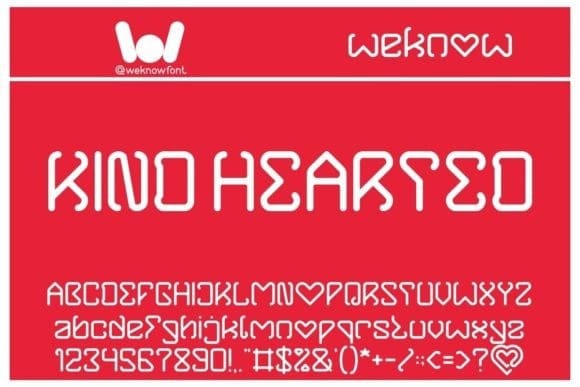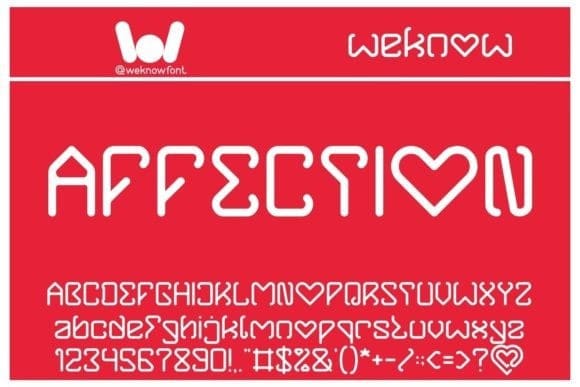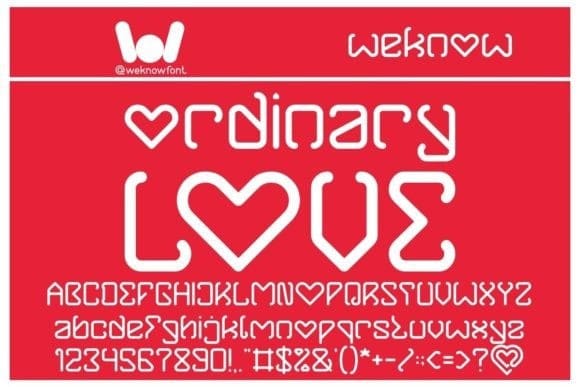
Ordinary Love Font
Ordinary Love Font, is a techno-themed font suitable for logos, logotypes, headlines, corporate identity, brand identity, apparel industry, posters, music, movies, games, magazines, books, comics, cartoons, YouTube, Instagram, websites, or any of your creative design projects.